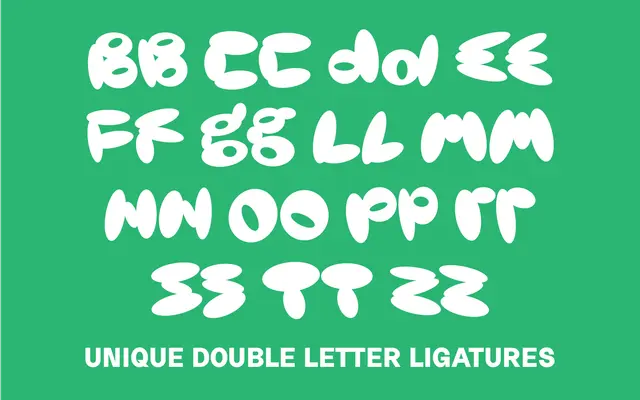
A single-weight bubble display font with inflated, rounded letterforms and a set of double-letter ligatures for repeated characters.
Orvil is a bubble-style display face offered in one weight, covering basic Latin and Latin Extended-A with a handful of OpenType features including ordinals and standard ligatures. Notably, it includes ligatures for doubled letters such as BB, CC, OO and others, which adds visual cohesion when such combinations appear. Best suited to logotypes, packaging and headline work where a soft, rounded personality is the brief.
Orvil is self-described as a bubble font, a display category defined by rounded, inflated letterforms with no calligraphic or serif tradition behind them. It is primarily suited to decorative and headline use rather than text setting.